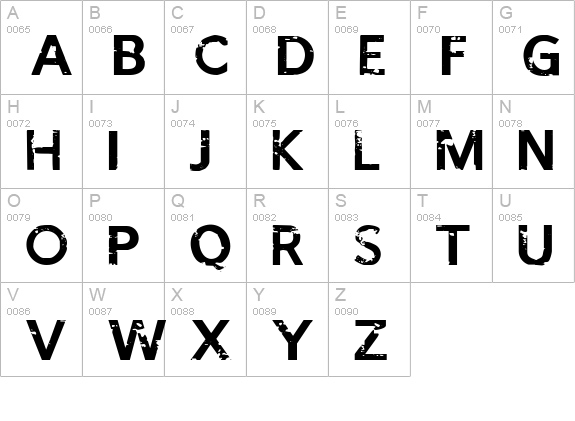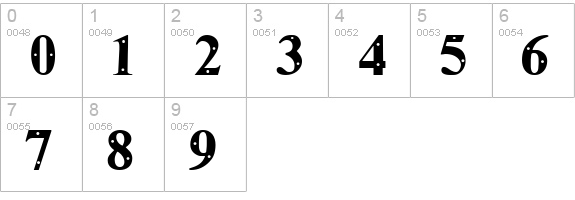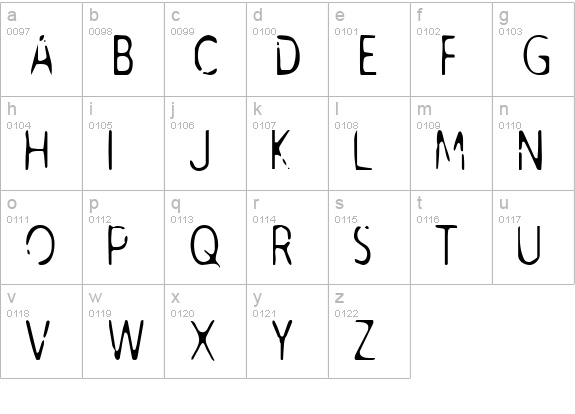
Introducing the captivating and enigmatic I AM SHERLOCKED font, a typographical masterpiece that embodies the essence of mystery and deduction. This font is perfect for those who seek to add a touch of intrigue and sophistication to their design projects. With its sleek and modern design, I AM SHERLOCKED font is sure to captivate the attention of viewers and leave them in awe of its elegance. Each letter is meticulously crafted to create a seamless flow, allowing for a seamless reading experience. But what truly sets I AM SHERLOCKED font apart is its versatility. Whether you're designing a book cover, a movie poster, or even a logo, this font seamlessly blends into any project, effortlessly enhancing the overall aesthetic. And the best part? I AM SHERLOCKED font is freely available to download at FontsMarket.com. Yes, you read that right - you can access this remarkable font without spending a dime. FontsMarket.com offers a wide selection of high-quality fonts, and I AM SHERLOCKED font is just one of the many gems waiting to be discovered. So, if you're ready to embark on a design journey filled with intrigue and artistry, look no further than I AM SHERLOCKED font. Download it today from FontsMarket.com and unlock the limitless possibilities of this captivating typeface.